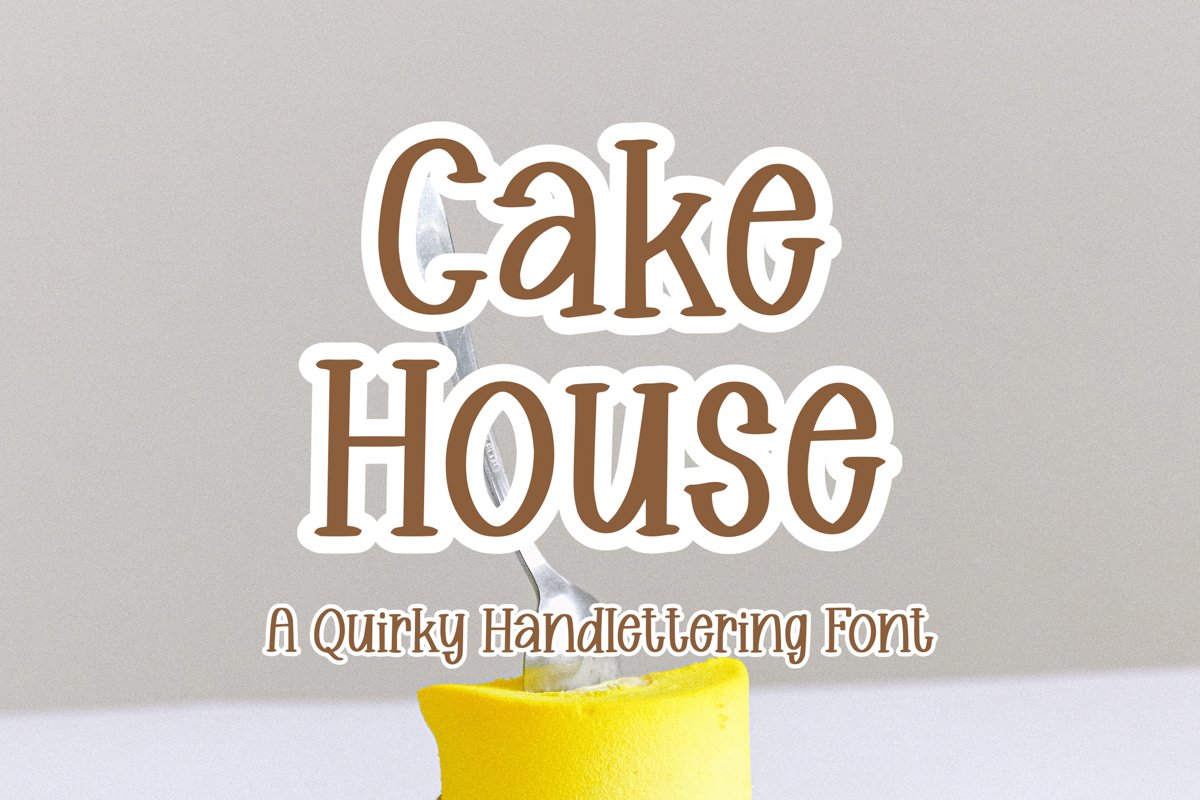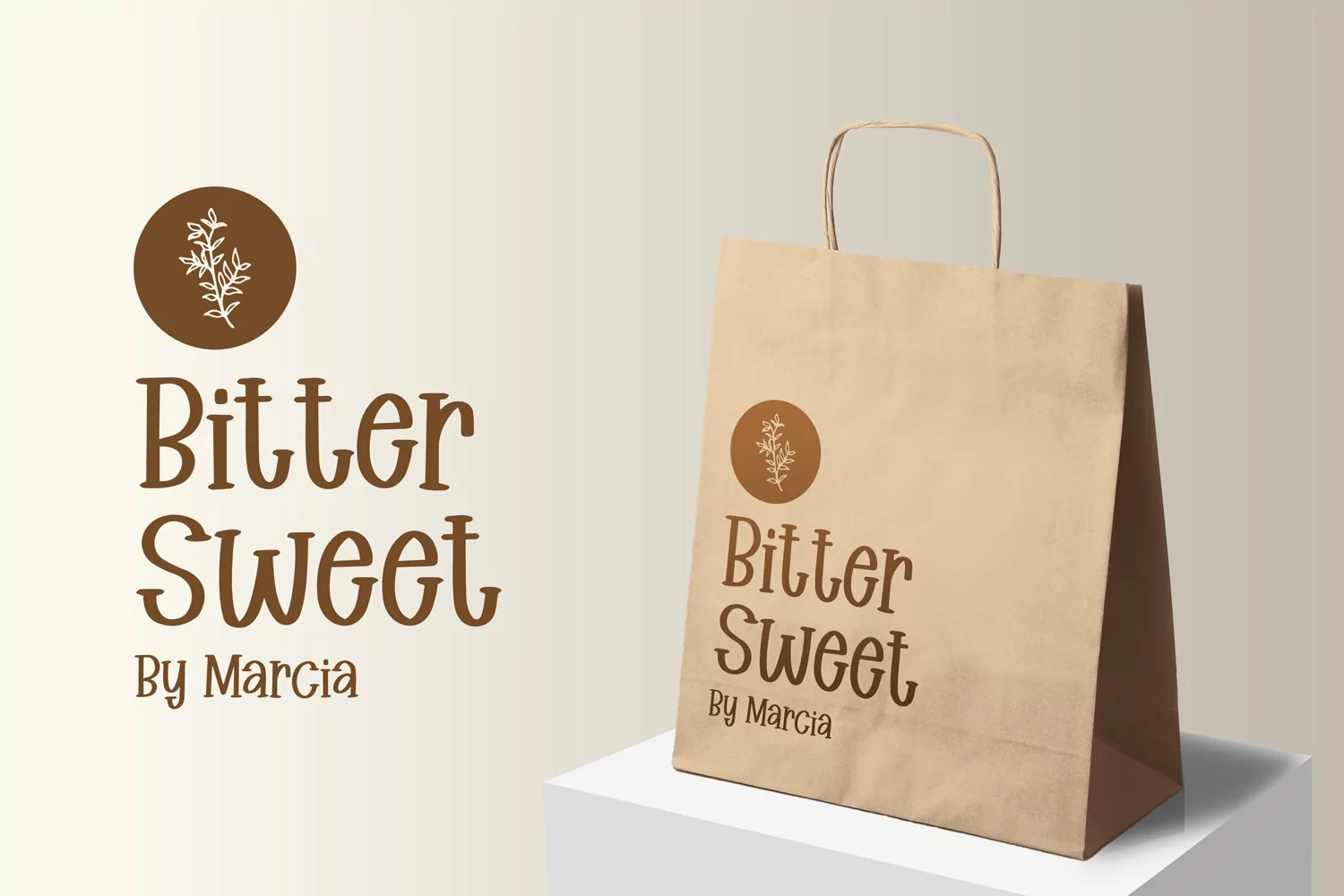
Cakehouse - Quirky Handlettering Font that contain lowercase, uppercase, symbol, and also support multi language. There’s a lot ligatures in this font. This Font also comes with ligatures, alternates and many more. this font suitable for fashion, branding, catalog and other design what you want.
Cakehouse